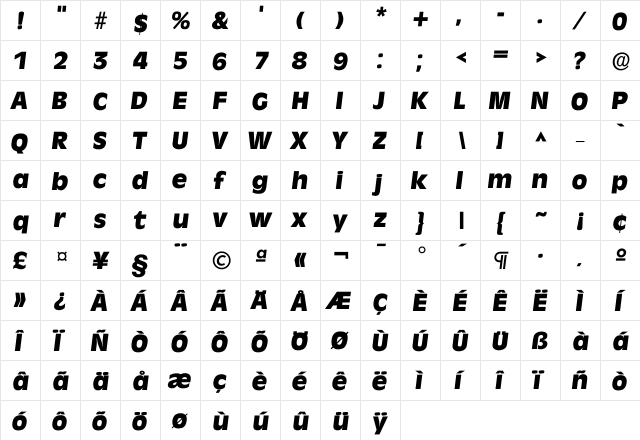
Iravenna ExtraBold
Design Context for Iravenna Typeface
Iravenna takes a measured approach to typography — its balanced proportions and neutral character make it a reliable workhorse for both digital and print work. Its bold stroke weight gives it real presence on the page.